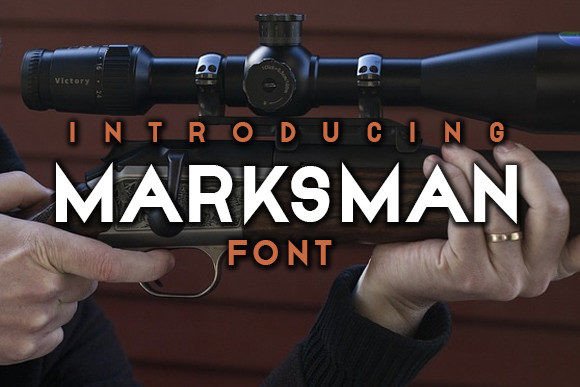
Prepare to be captivated by Marksman, the extraordinary sans serif font designed to transform your creative visions into awe-inspiring realities. With its exceptional legibility and bold character, Marksman is the ultimate choice for captivating headlines, compelling posters, and eye-catching T-shirt designs.
Indulge in the world of typography with Marksman's crisp lines and impeccable curves, meticulously crafted to evoke a sense of sophistication and allure. Its clean and contemporary aesthetic seamlessly complements any design concept, making it the perfect canvas for your imagination to soar.
Unlock the boundless possibilities of Marksman and witness the transformative power it holds. Its versatility extends far beyond the digital realm, lending its charm to the printed world with equal grace. Picture your designs�off the page, captivating audiences with its timeless appeal.
Embrace the allure of Marksman today and elevate your creative endeavors to new heights. Let your words dance across the screen or paper with unparalleled style and impact. With Marksman as your ally, every design becomes a masterpiece, leaving an unforgettable impression on all who behold it.